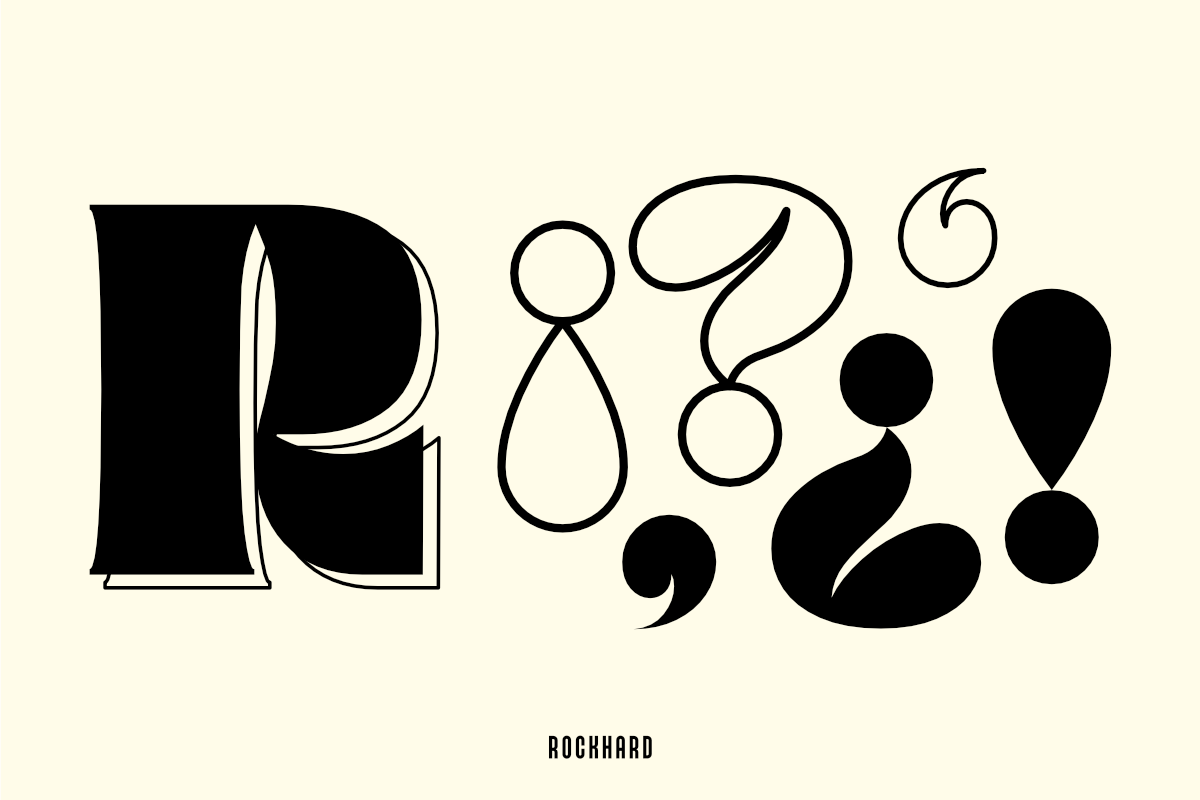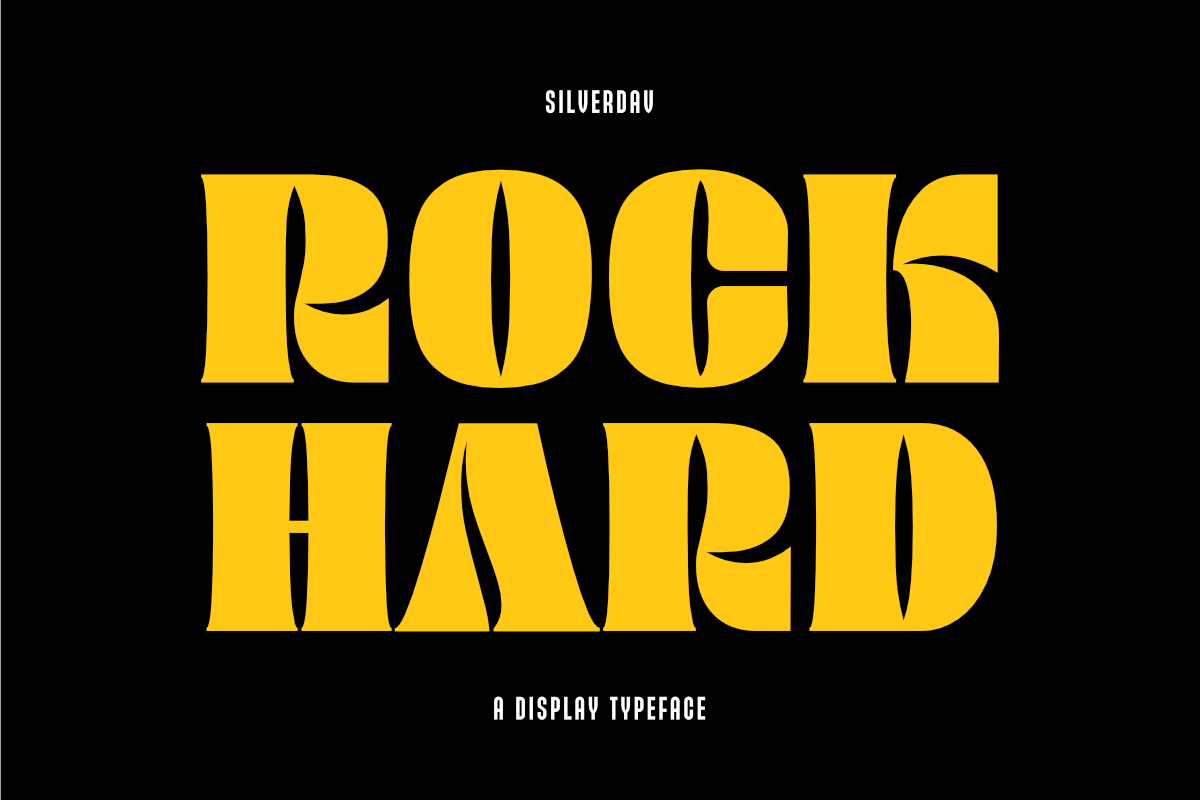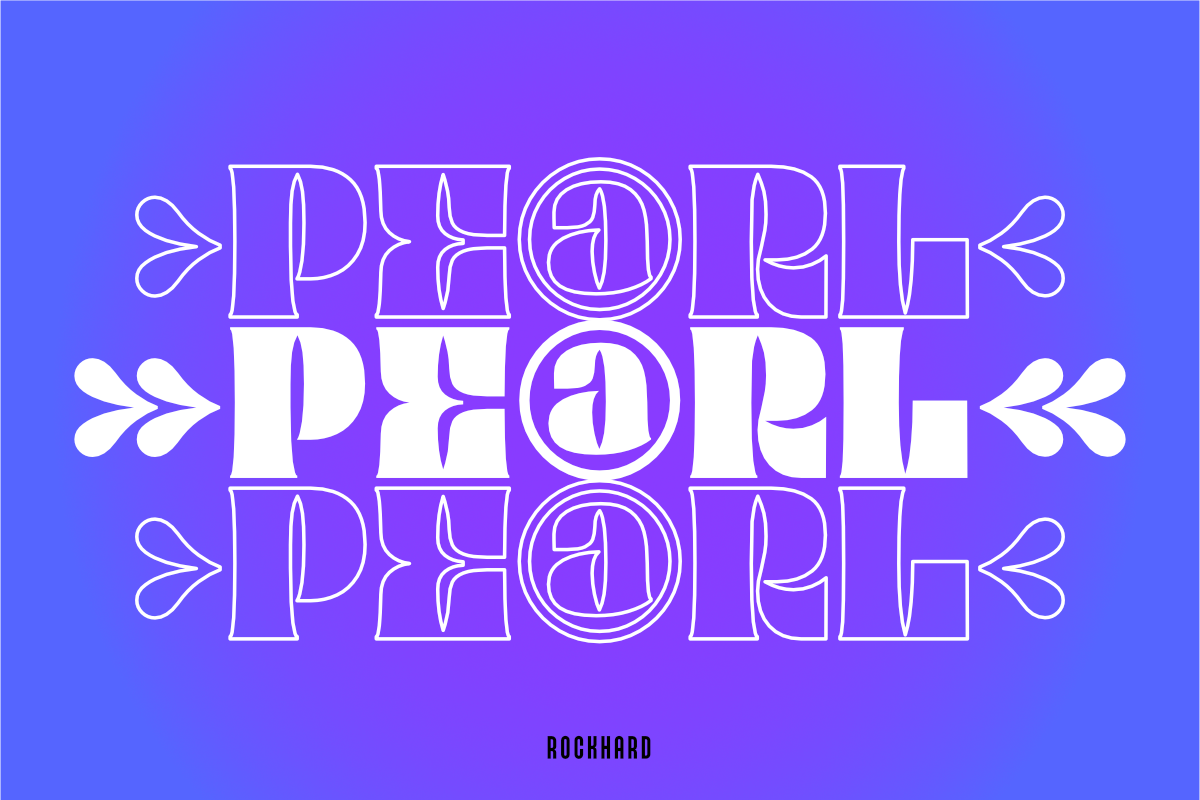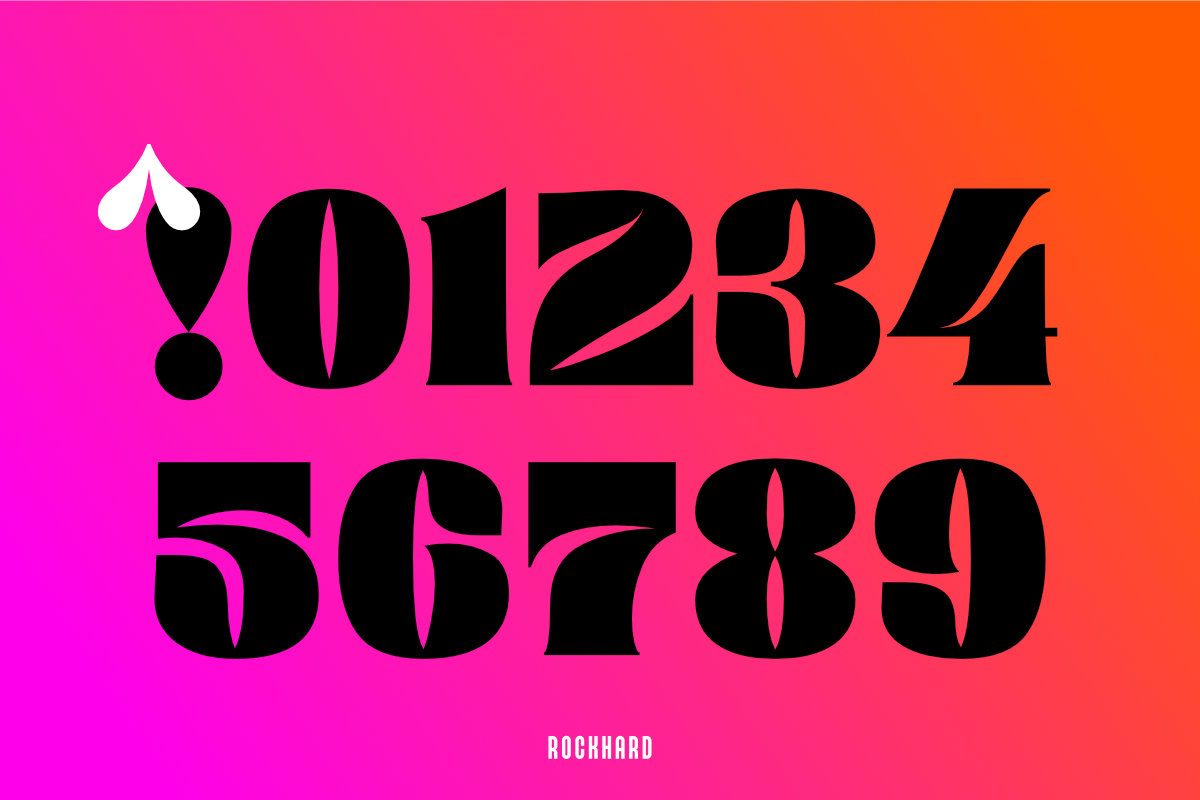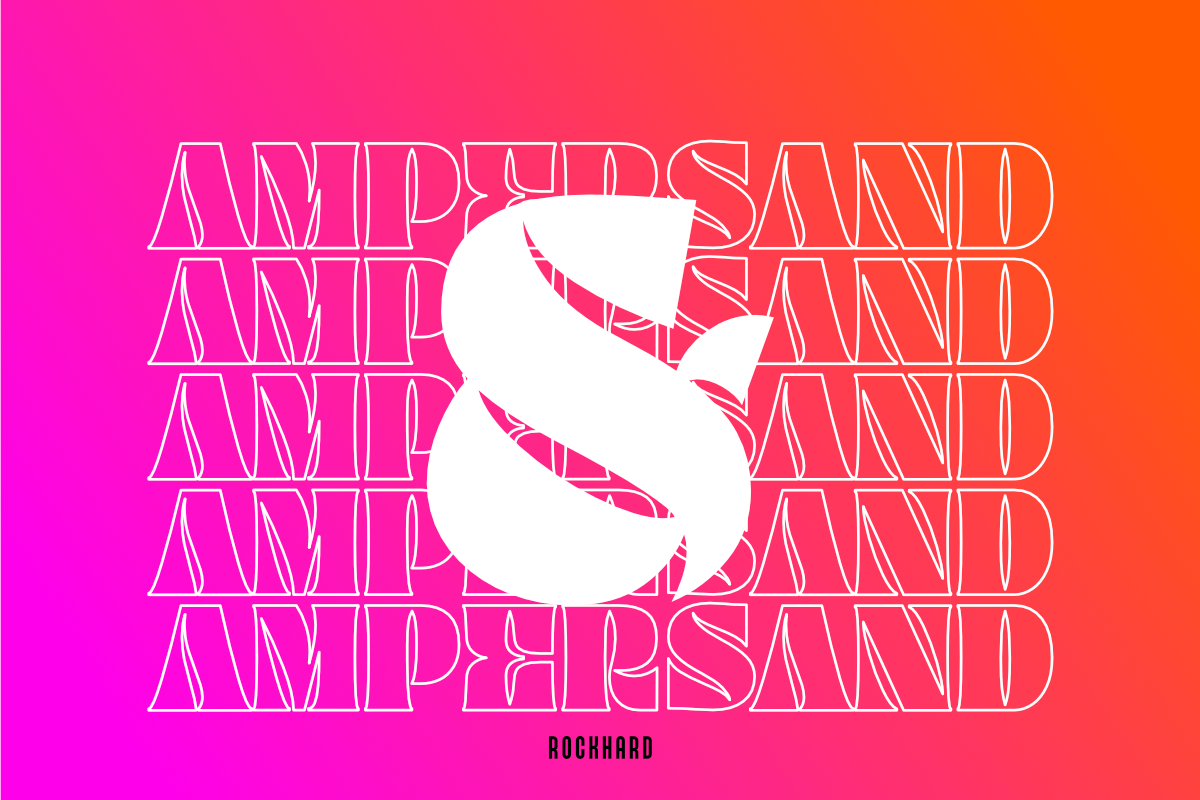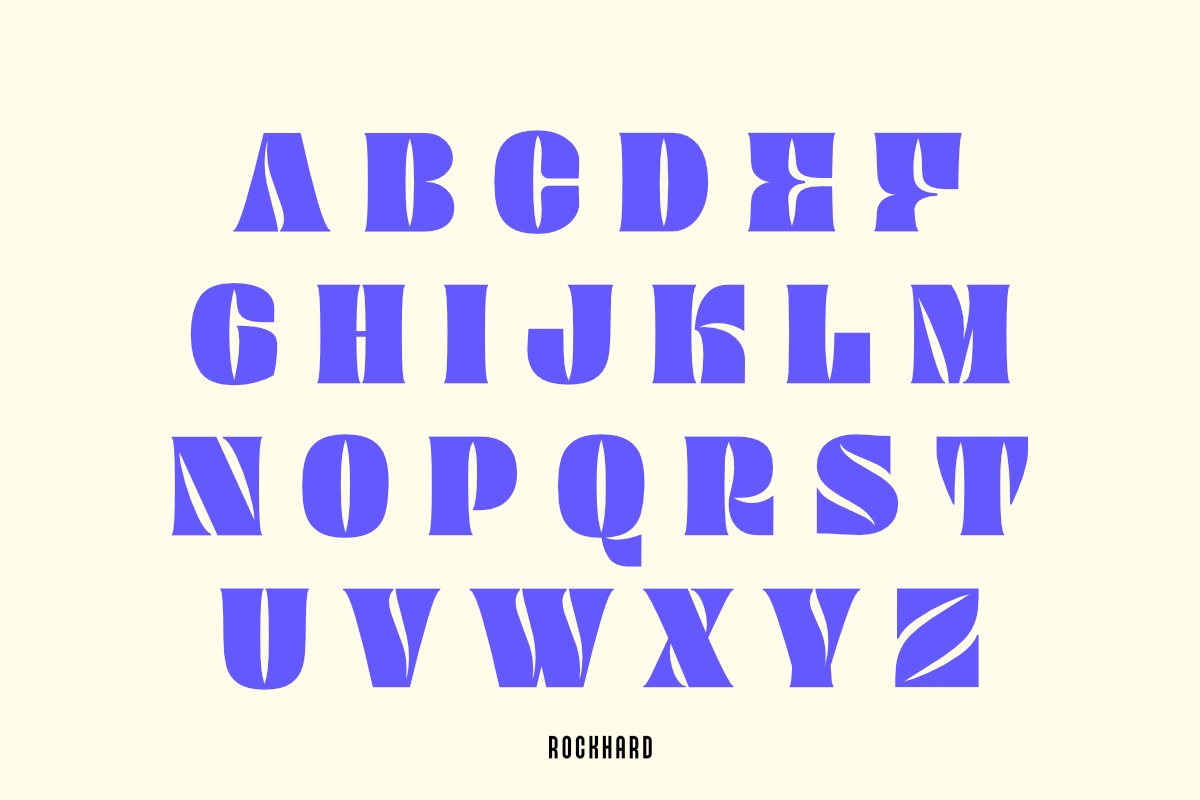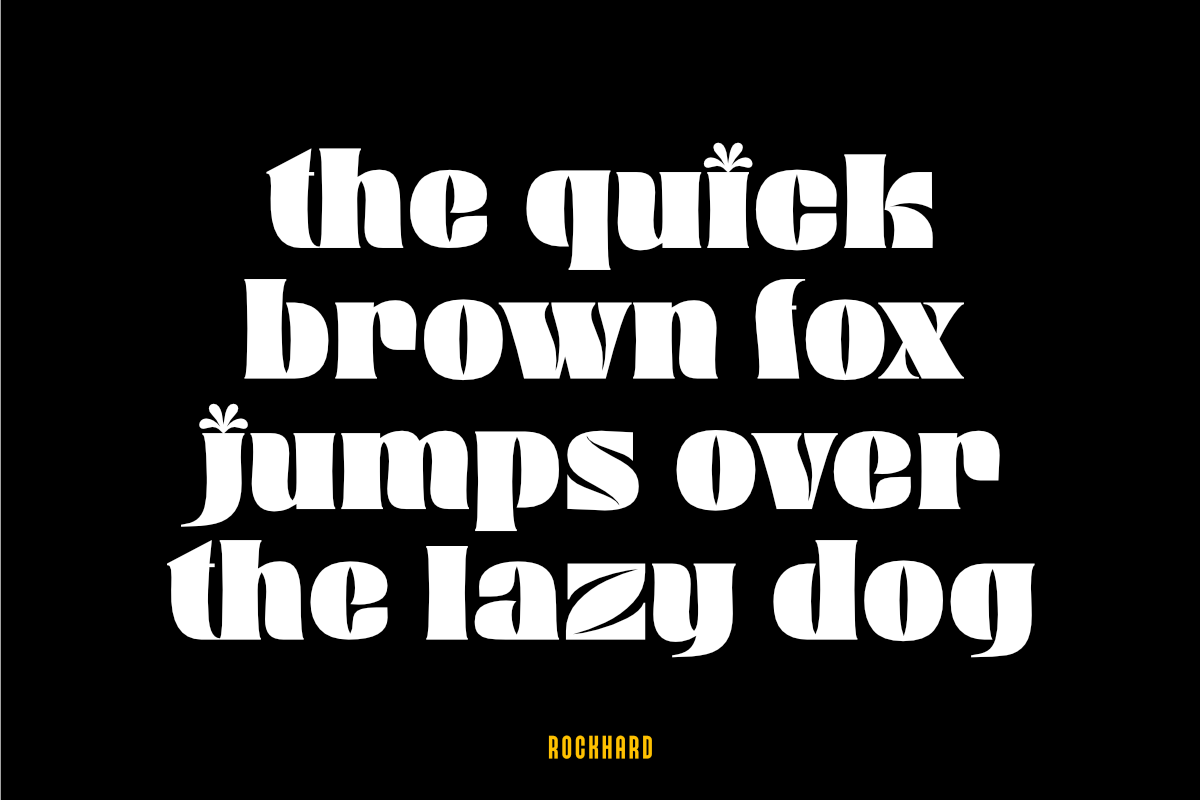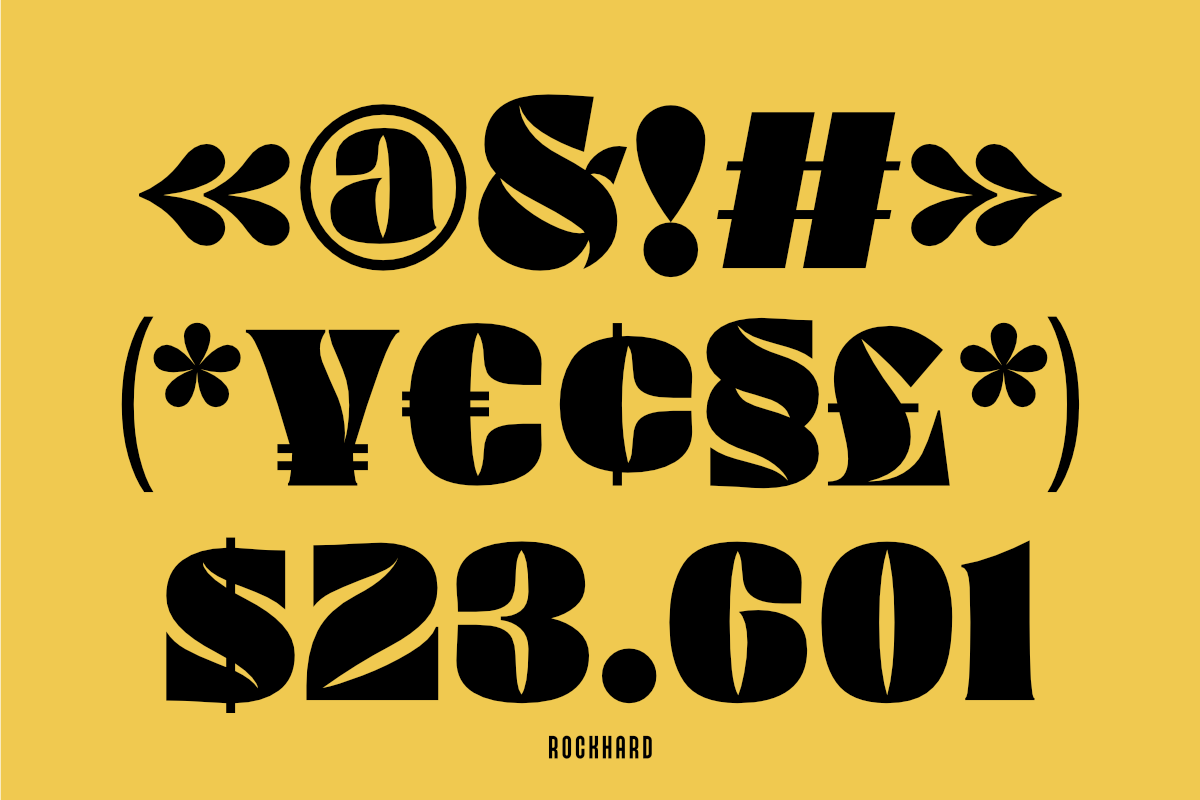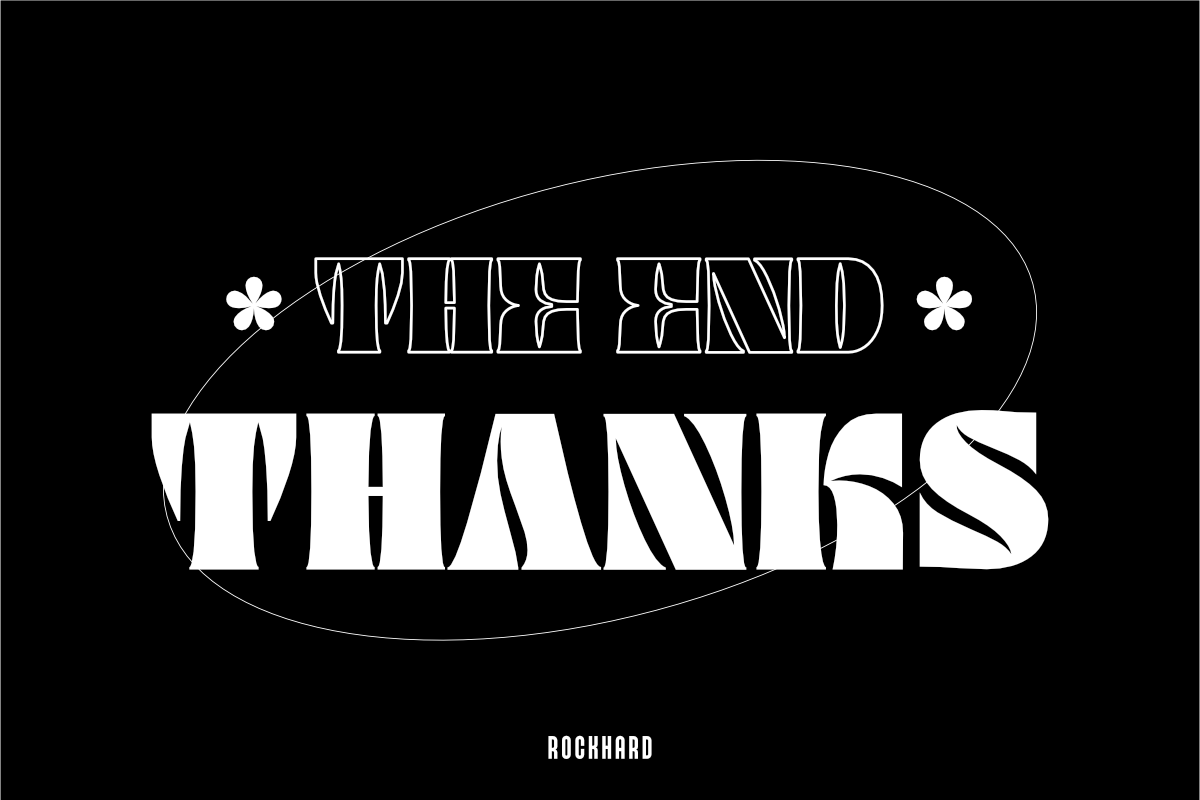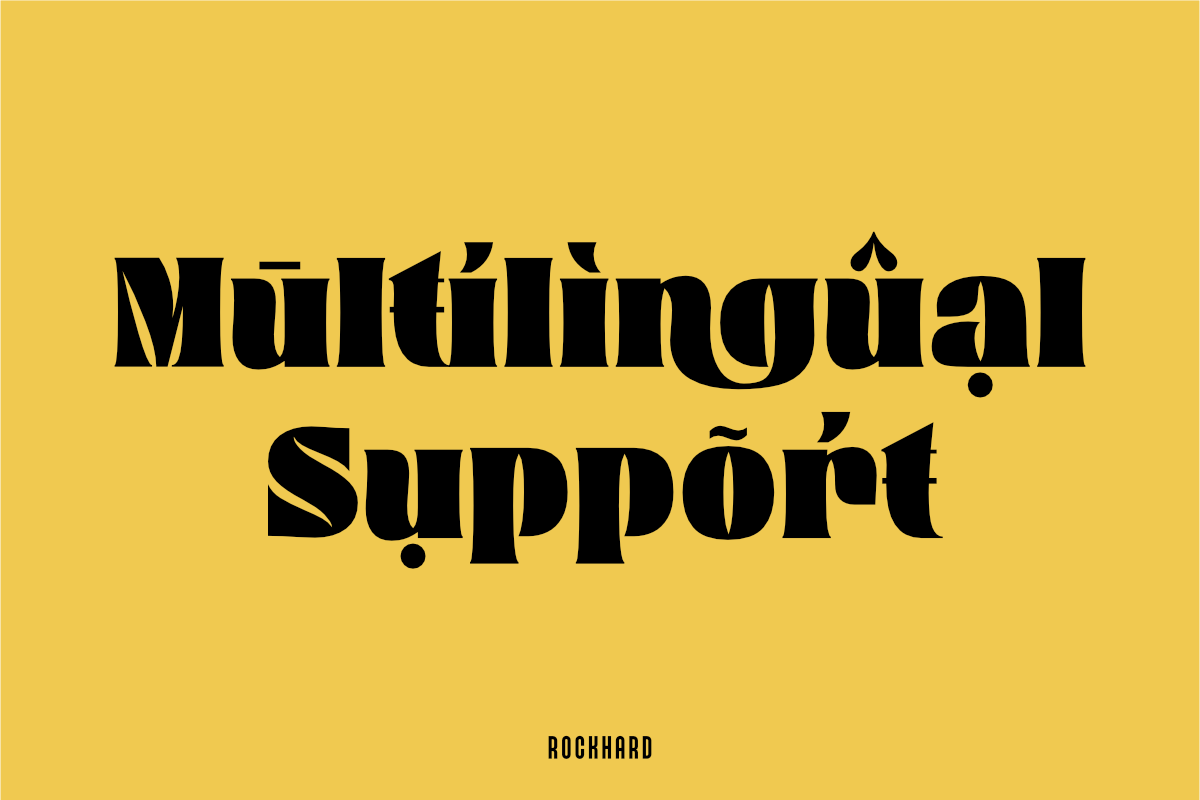
Rockhard - A Display Typeface
Introducing the "ROCKHARD" font, a type of display font with a strong and modern shape, you can find a lot of uniqueness in it, this font is intended for designers who like strong but still elegant fonts with a unique shape that will add an elegant impression to the design you and different from others.
This font is very suitable for design needs such as logos, branding, magazine covers, and others, please try it yourself.
- Multilingual Support (Support for 97 languages)